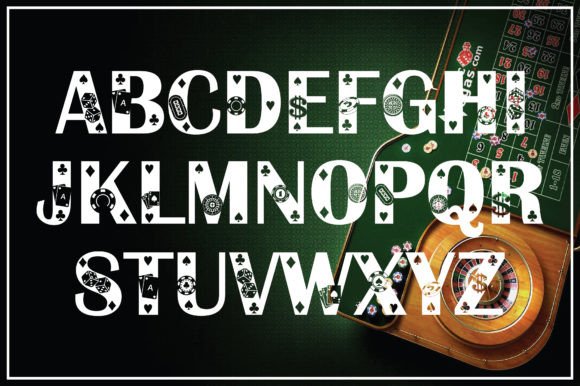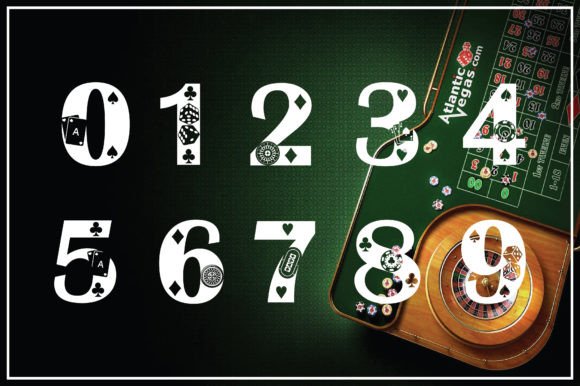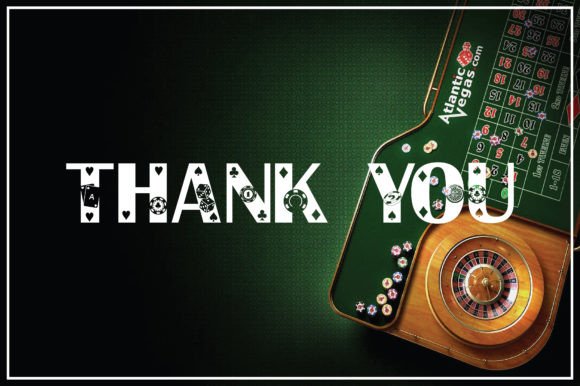
The Ultimate Guide to Casino Font: A Game-Changer for Designers
I’ll never forget the time I was working on a children’s game design project, and I just couldn’t find the right font to bring the characters to life. The client wanted something fun, playful, and eye-catching, but everything I tried seemed either too bland or too over-the-top. That’s when I stumbled upon the Casino font, and it was like a lightbulb moment! ✨ In this article, I’ll share my love for this unique display font, its features, and how to make the most of it in your designs.
An Honest Review of Casino Font
What I Love About Casino Font
- 💥 **Thick lettering**: Casino font is bold and sturdy, making it perfect for headlines, titles, and attention-grabbing text.
- 🎉 **Unique style**: Its quirky, playful vibe sets it apart from other fonts, adding a touch of whimsy to any design.
- 🚀 **Versatility**: Despite its bold nature, Casino font can be used for various design ideas, from children’s games to science and space exploration themes.
- ✅ **Easy to read**: Even at smaller sizes, Casino font remains clear and legible, making it a great choice for body text or subtitles.
While Casino font is an excellent choice for many projects, there are a few things to keep in mind:
- 🤔 **Limited use for body text**: Due to its bold nature, Casino font might not be the best choice for lengthy paragraphs or body text.
- ⚠️ **Overuse can be overwhelming**: As with any bold font, using Casino font excessively can be overwhelming and detract from the overall design.
- Experiment with OpenType features, such as glyphs and stylistic alternates, to add more personality to your text.
The Backstory of Casino Font
Legend has it that Casino font was inspired by the neon lights of a classic Las Vegas casino. The designer, fueled by a late-night gaming session and a passion for typography, created a font that captures the excitement and energy of the gaming floor. While the story might be fictional, one thing is certain: Casino font has become a staple in many designers’ toolkits.
Q: Is Casino font suitable for body text?
A: While Casino font is legible, its bold nature makes it more suitable for headlines, titles, or attention-grabbing text. For body text, consider using a complementary font that’s easier to read.